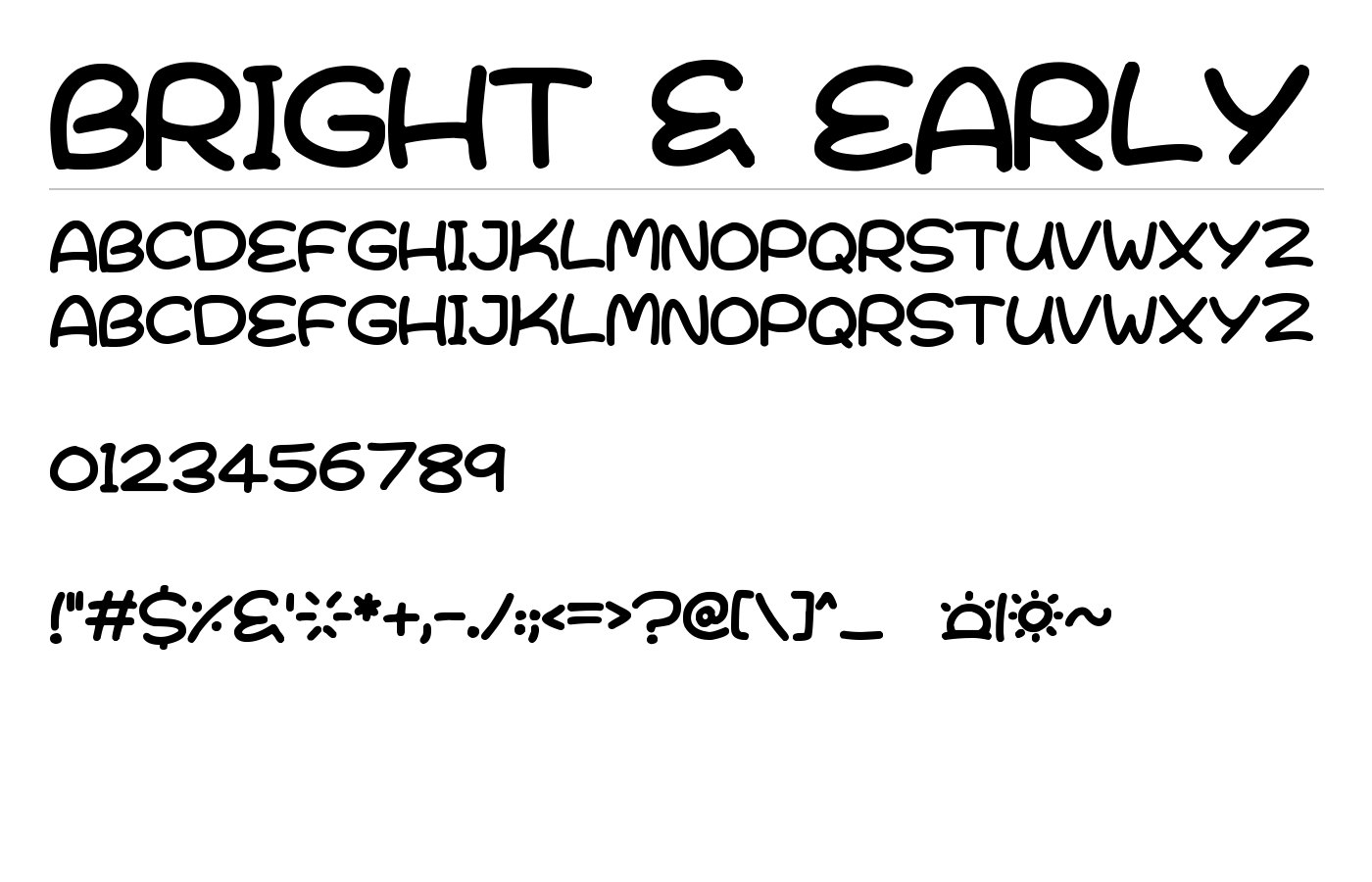
Bright & Early is a playful and casual sans serif font with rounded, slightly irregular letterforms that evoke a friendly and approachable feel. Its moderate weight and open shapes make it highly readable, ideal for informal and fun designs like children’s books, educational materials, or lighthearted branding. This font works best in headlines, logos, and any creative project seeking a warm, cheerful personality.
Bright & Early Font
About Bright & Early Font